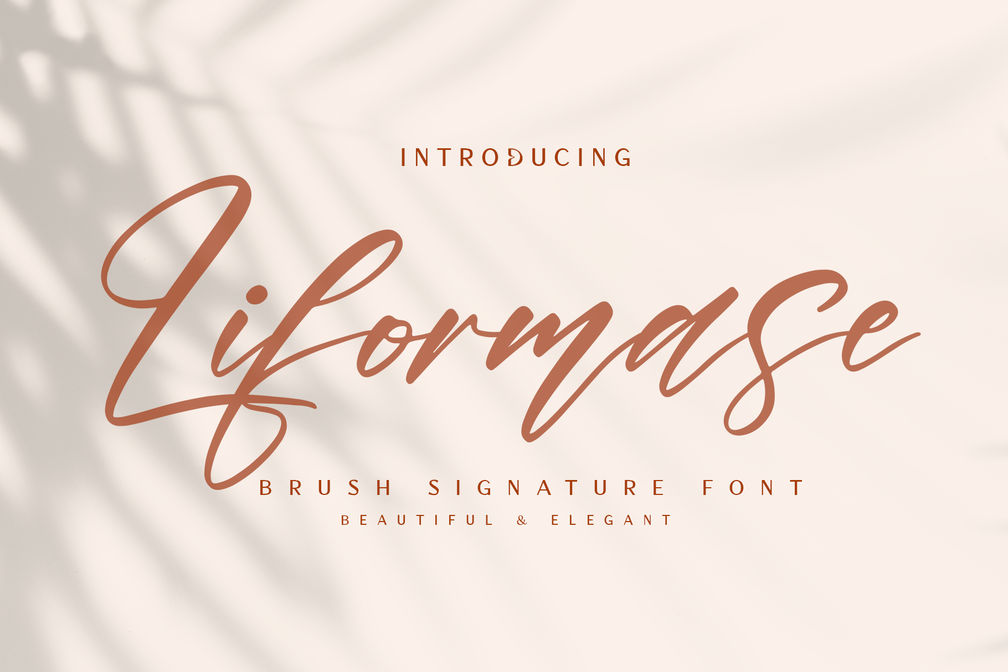
Liformase
Liformase is beautiful and elegant script font. The shape is modern, unique and the writing style is very natural. Look perfect with smooth brush. You can create many beautiful typographic designs in an instant like branding, web design and editorial, prints, crafts, quotes,
It’s great for logotypes, wedding invitations, romantic cards, labels, packaging, spelling of names and others. Add to your most creative ideas and watch how they bring them to life!